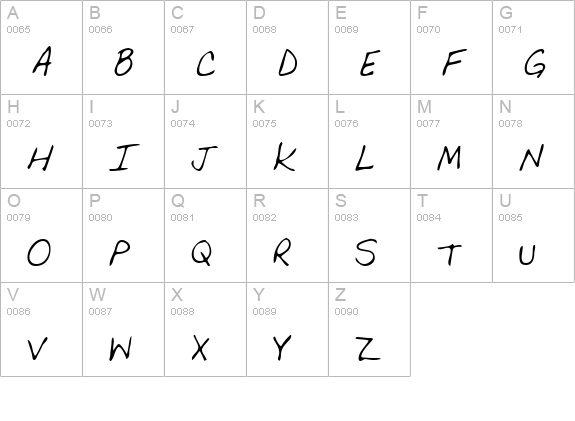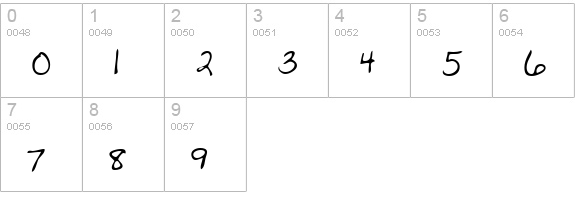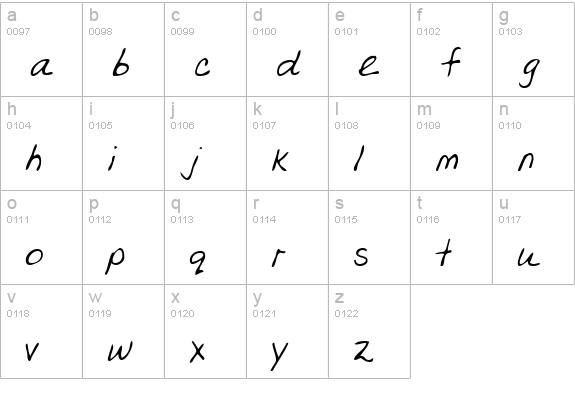
KorasHand Regular Font Details
KorasHand Regular is the standard, neutral variant in the KorasHand typeface family \xE2\x80\x94 well suited to general body text, paragraphs, and standard typographic work.
KorasHand Regular font is a charming and versatile typeface that exudes a sense of warmth and friendliness. With its smooth lines and elegant curves, this font is perfect for adding a personal touch to any project. Whether you're designing invitations, greeting cards, or branding materials, KorasHand Regular font will bring a touch of handmade beauty to your creations. The best part is that KorasHand Regular font is available for free download at FontsMarket.com. You can easily access this delightful font and start using it in your designs without any cost. Embrace the creative possibilities that KorasHand Regular font offers and let your projects stand out with its unique charm and character.